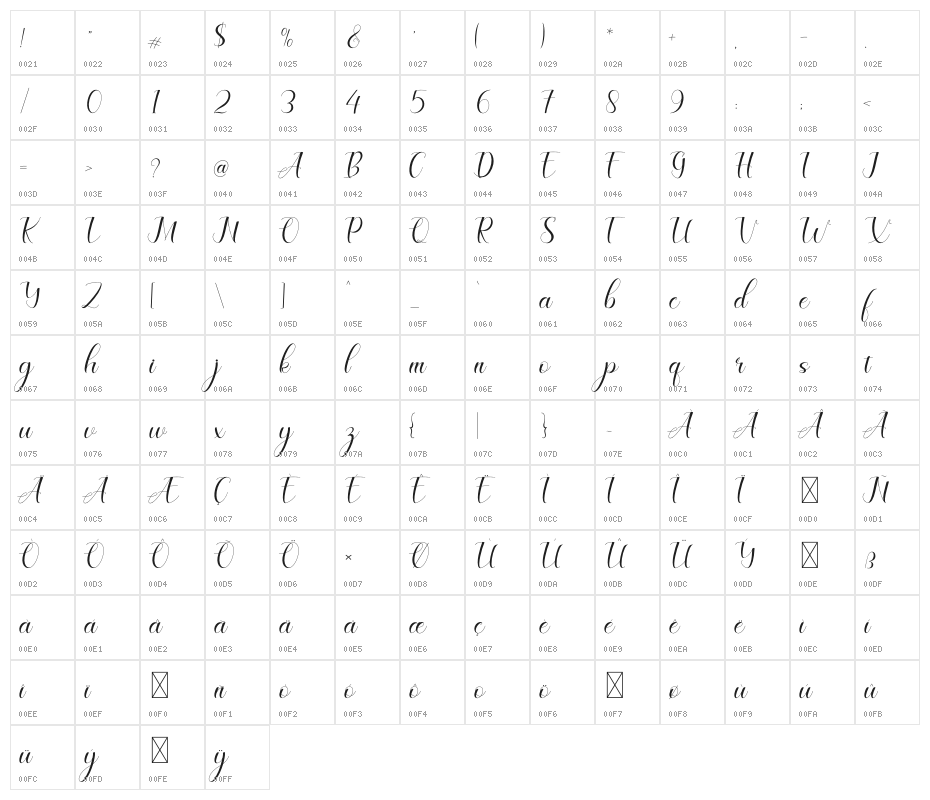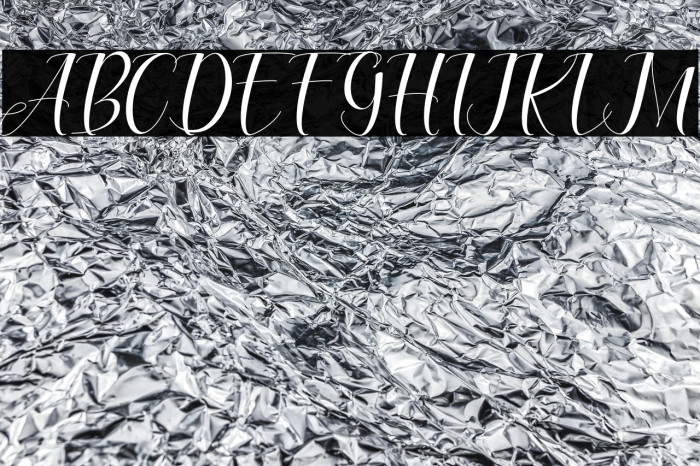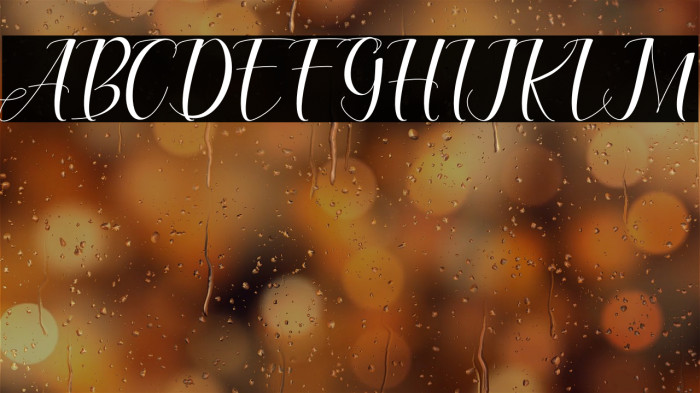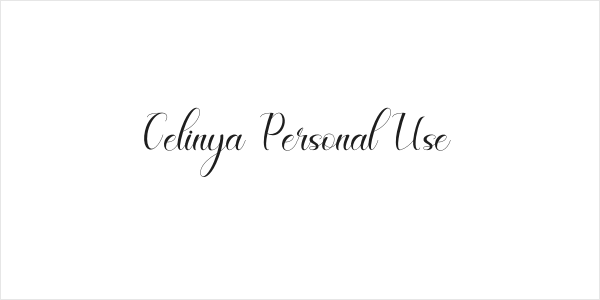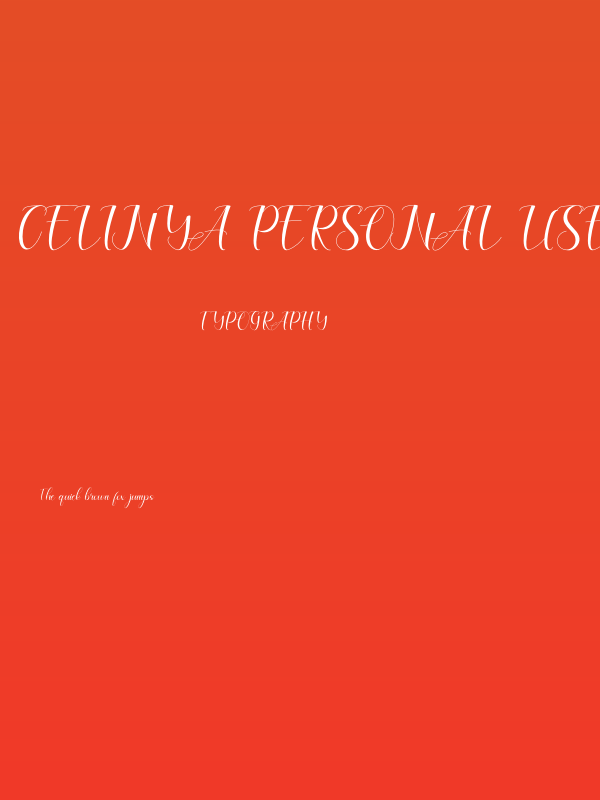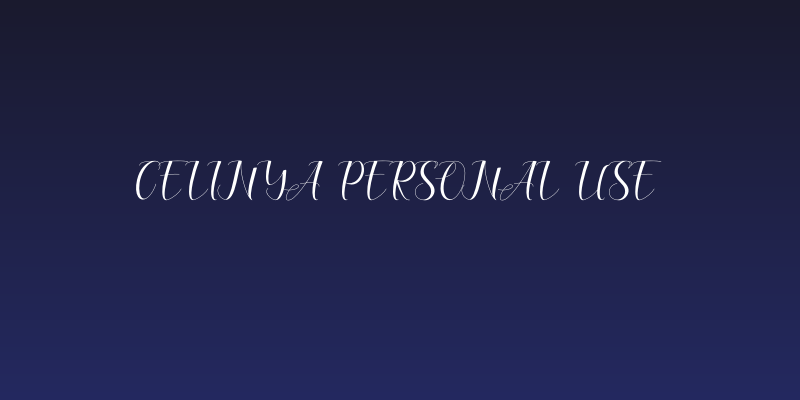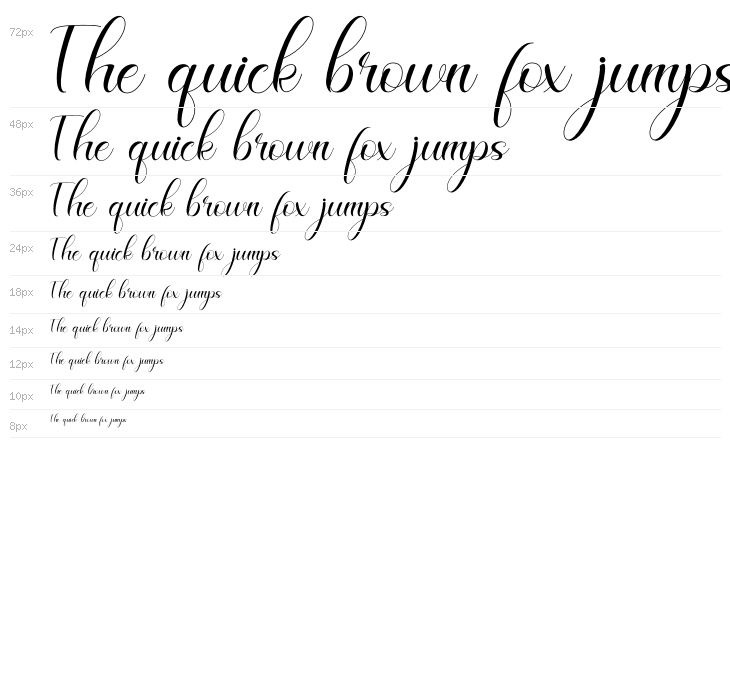
Celinya Personal Use Font
Celinya Personal Use Description
This elegant script font features a flowing, cursive style with high contrast between thick and thin strokes. The uppercase letters are characterized by dramatic flourishes and loops, giving them a sophisticated and artistic appearance. The lowercase letters maintain a consistent flow, with some characters extending below the baseline, adding to the font's graceful and fluid nature. The numerals are designed with a similar flair, incorporating subtle curves and varying line thicknesses. Special characters are included, each crafted with the same attention to detail and decorative elements, making this font ideal for projects that require a touch of elegance and creativity.
| Proposed Projects | Ideal for wedding invitations, elegant branding, greeting cards, and high-end product packaging. |